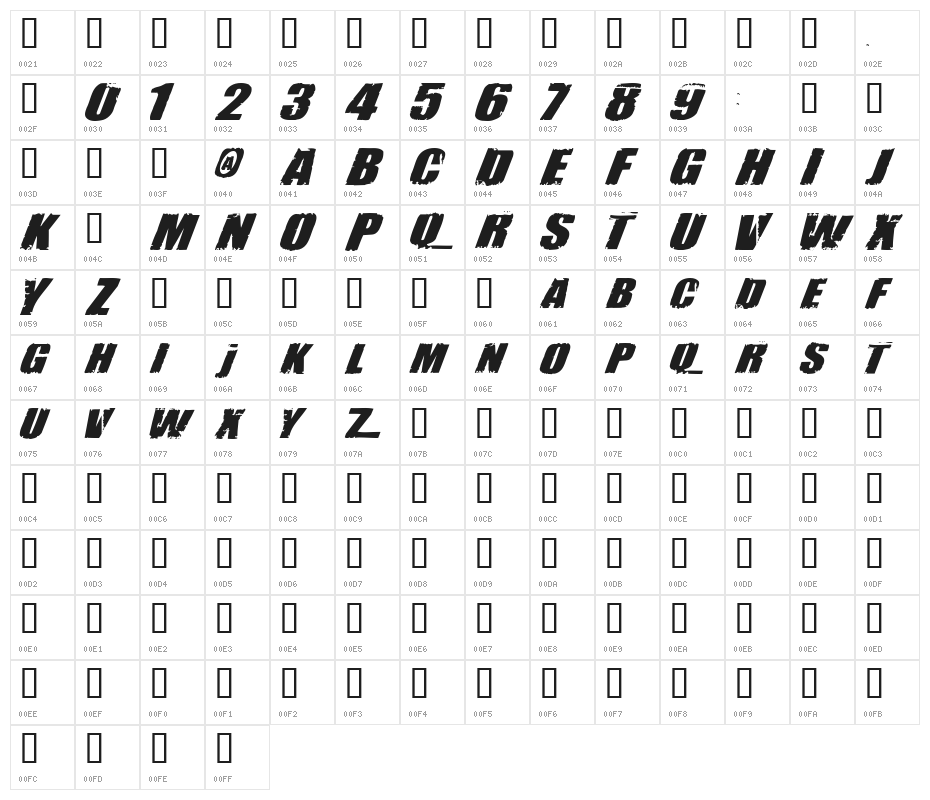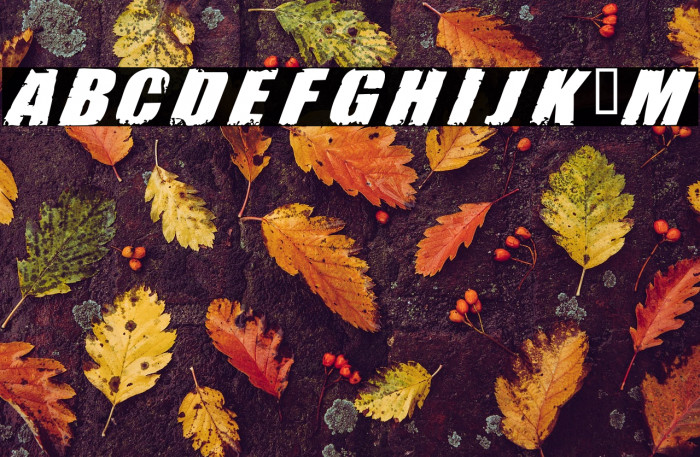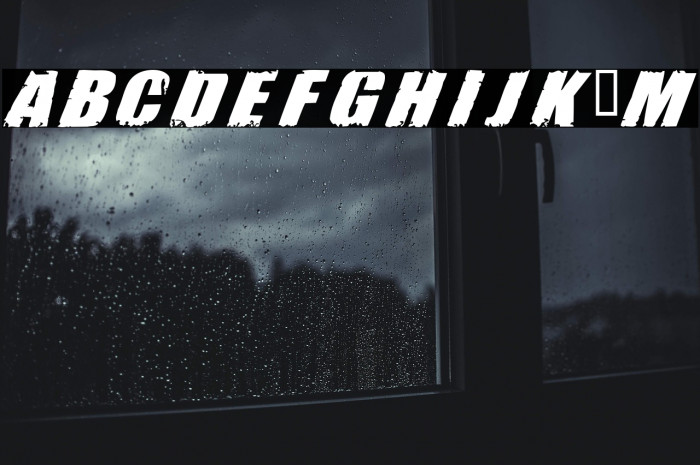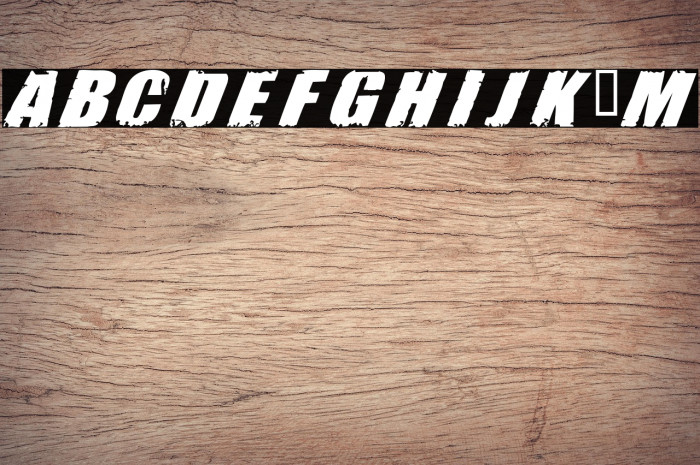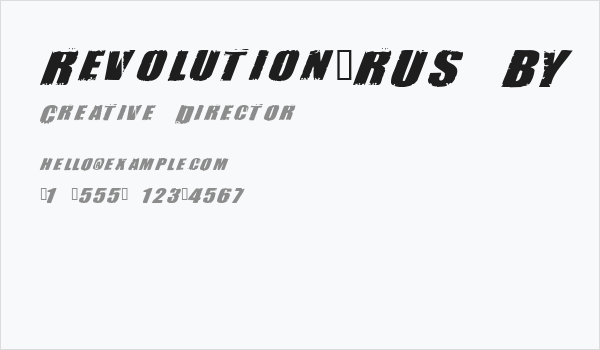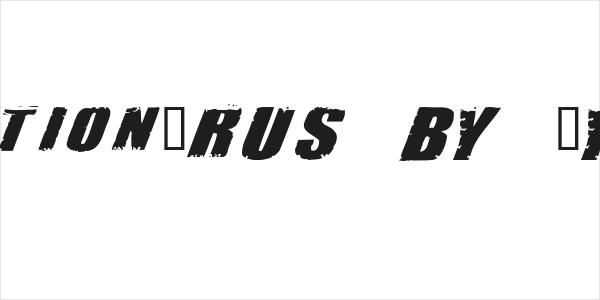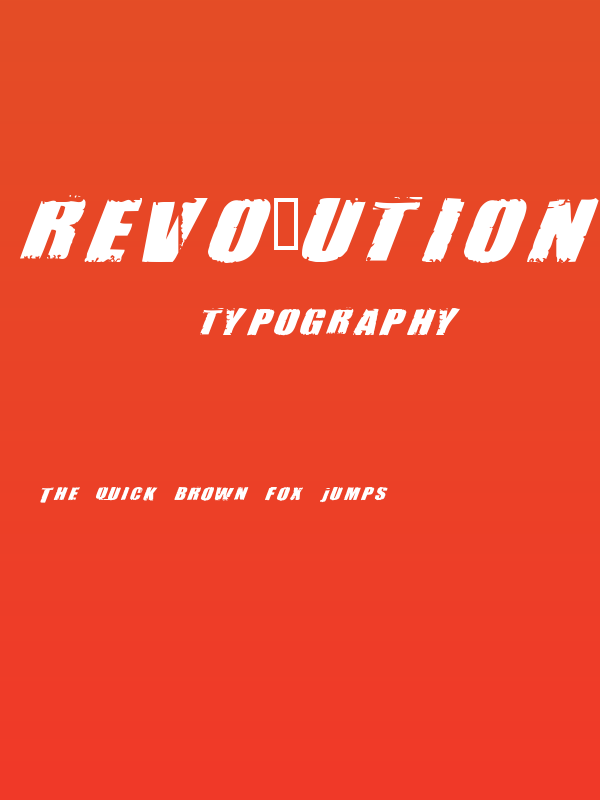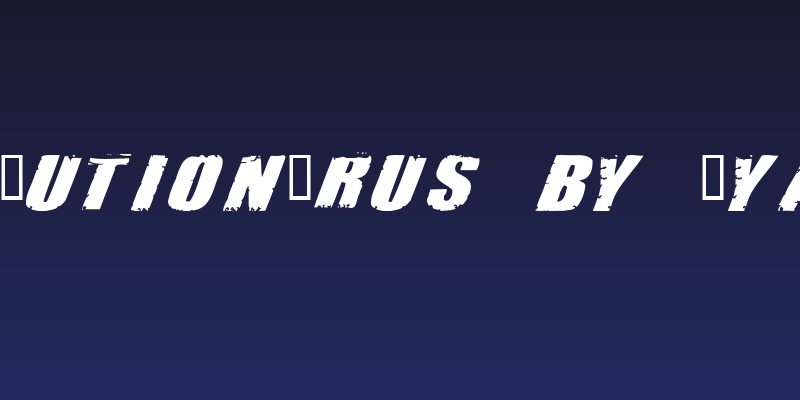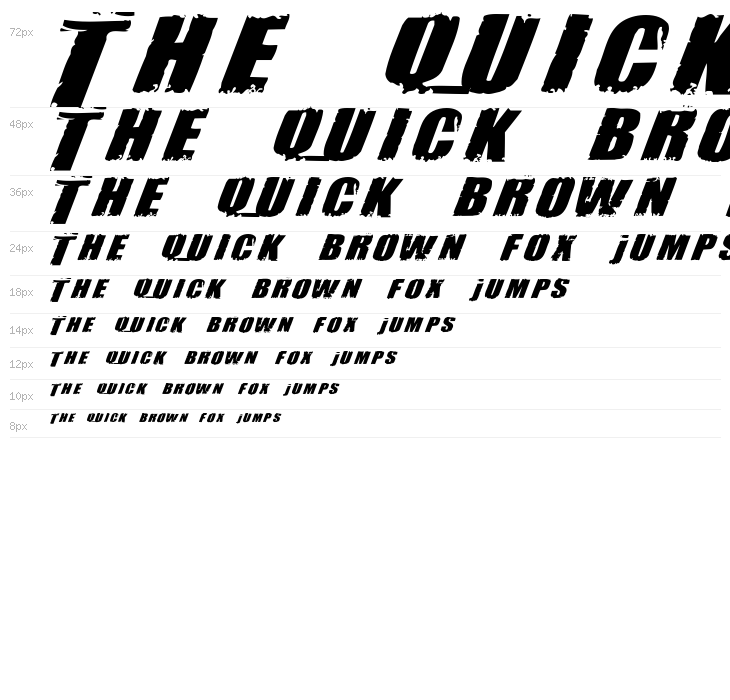
Revolution(RUS BY LYAJKA) Font
Revolution(RUS BY LYAJKA) Description
This font features a bold, distressed style with a dynamic, slanted orientation that gives it a sense of movement and energy. The characters are heavily textured, resembling a worn or grunge effect, which adds a rugged and edgy aesthetic. The uppercase and lowercase letters maintain a consistent style, with thick strokes and irregular edges that create a visually striking appearance. The numerals and special characters follow the same design principles, ensuring uniformity across all glyphs. This font is ideal for projects that require a bold statement or a vintage, industrial look.
| Overall Style | Vintage, Industrial, Grunge |
| Proposed Projects | Ideal for posters, album covers, branding for edgy or industrial-themed products, and any design requiring a bold, impactful look. |